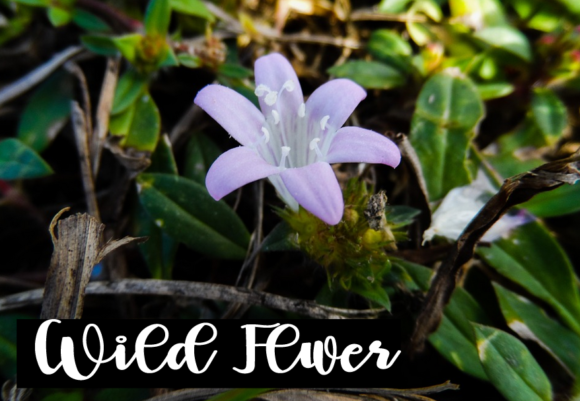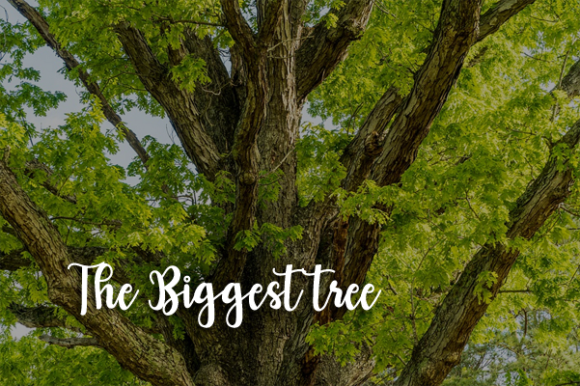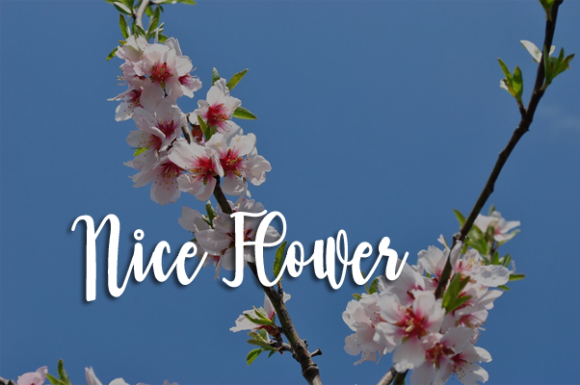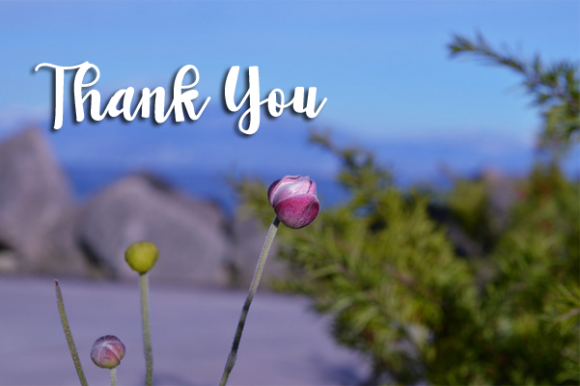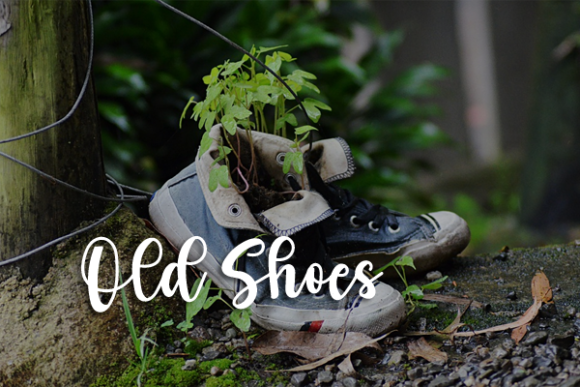
Reborn Font
About Reborn Font
Reborn is a lovely script font featuring charming, playful characters that seem to dance along the baseline. Add this font to your most creative ideas, and notice how it makes them stand out!